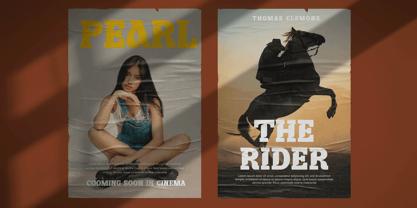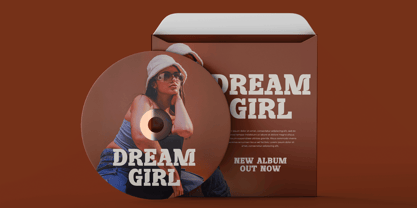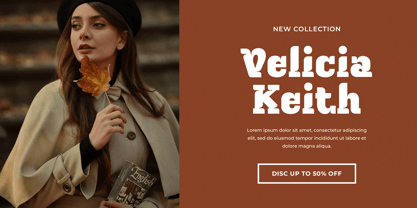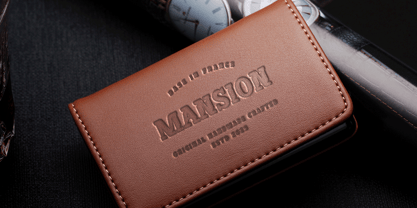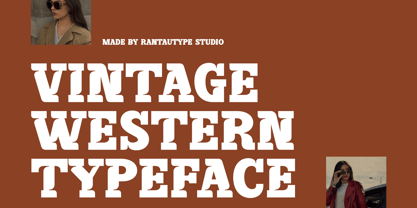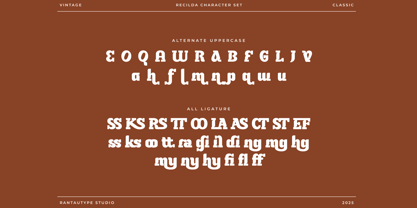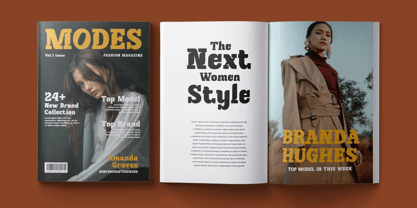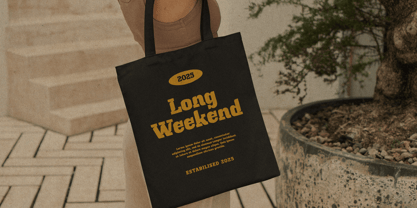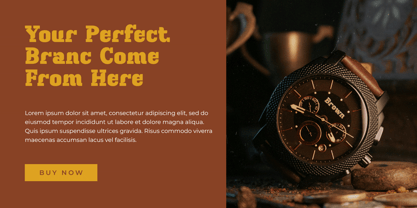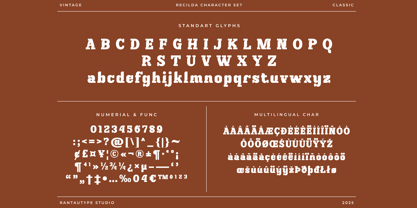
Recilda
Die Schriftfamilie Recilda wurde von Yudi Pratama Chandra entworfen und von RantauType veröffentlicht. Recilda enthält 2 Stile und Familienpaketoptionen. Mehr über diese Familie
Recilda is vintage serif font made with love by rantautype studio. Recilda is a perfectly choice for any creative endeavor, chic, lifestyle design such as logos, advertisements, stationery, branding project, display and magazine, invitation, corporate brand, product design, label, business project and many other project with vintage touch.
• Standart Glyphs
• Numberial and Functional
• Ligature and alternate